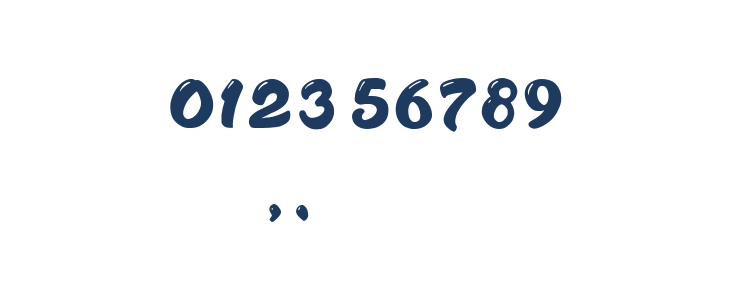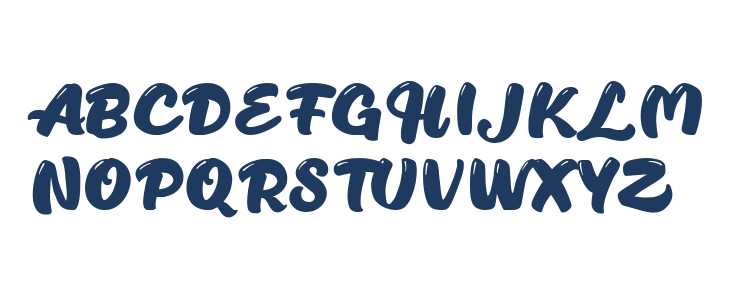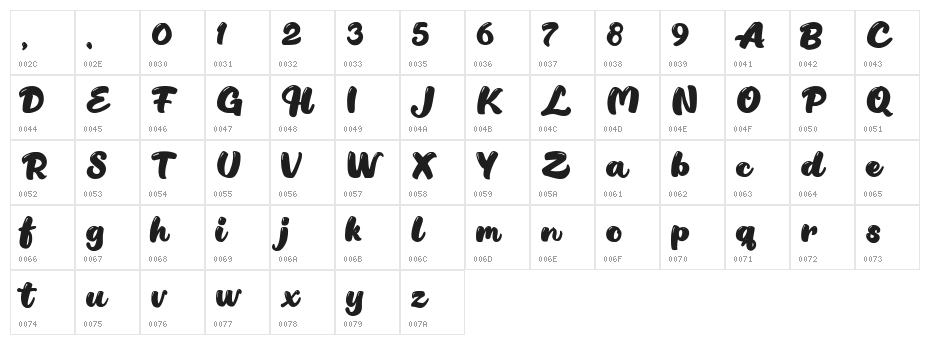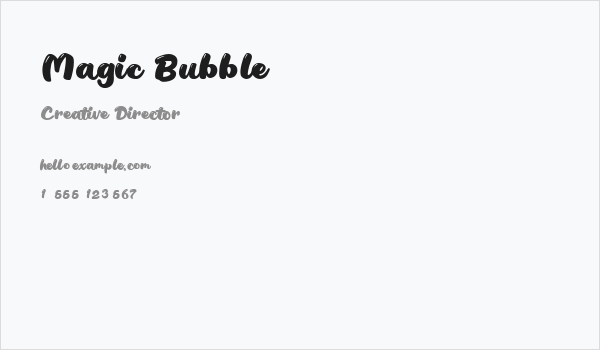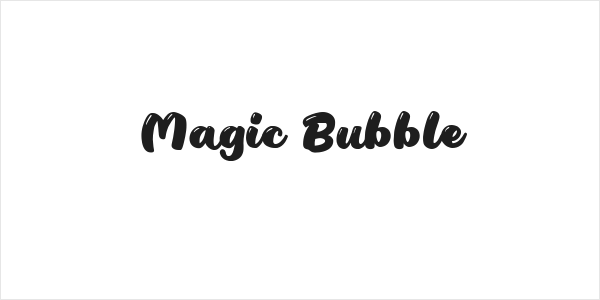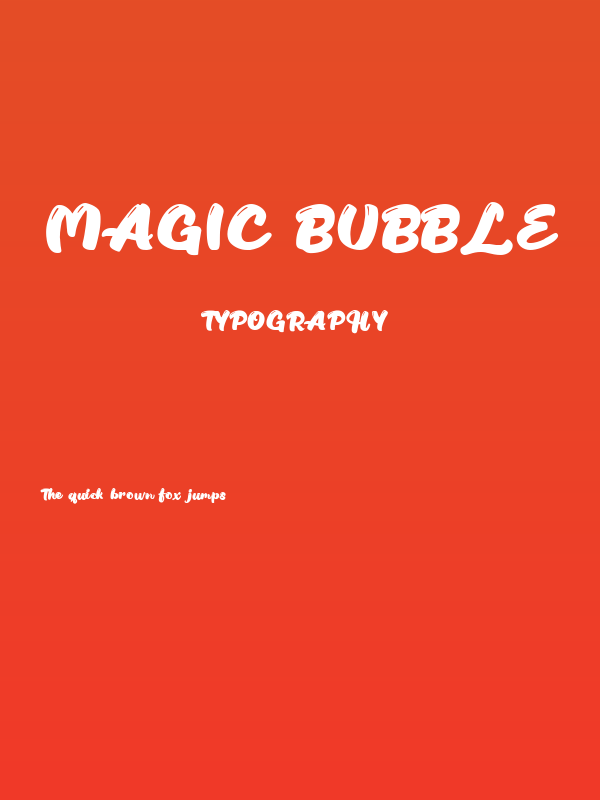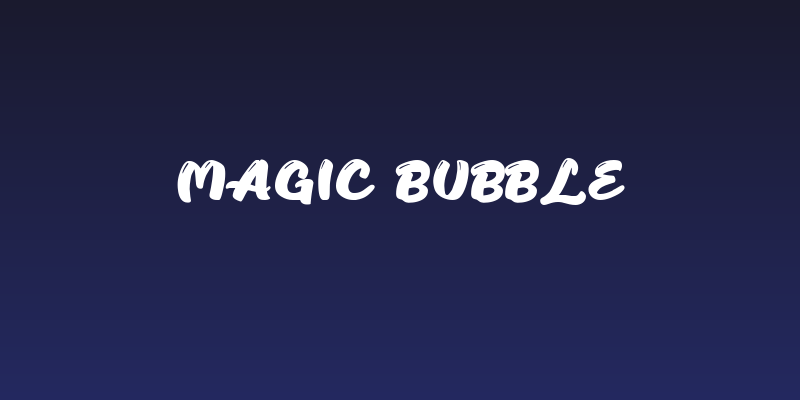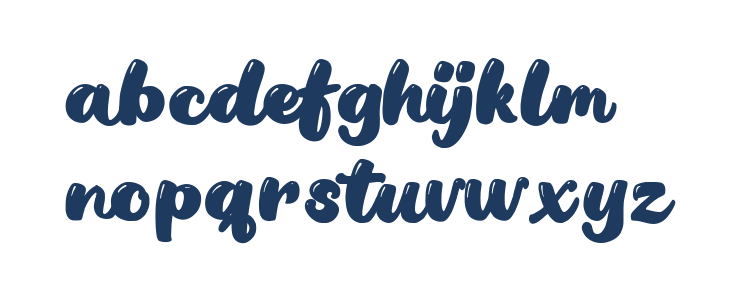
Magic Bubble Font
Magic Bubble Description
A playful, rounded script font with bold, bubbly letterforms and smooth, flowing connections. The strokes are thick and consistent, giving a soft, friendly appearance. The characters have a handwritten, brush-like quality with high legibility and a whimsical feel.
| Overall Style | Decorative, Playful, Handwritten |
| Use Case | Logos, Headlines, Posters, Invitations |
| Proposed Projects | Children's books, party invitations, playful branding, posters, greeting cards. |